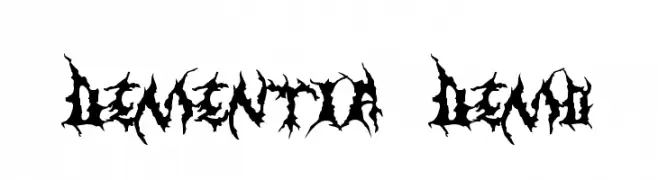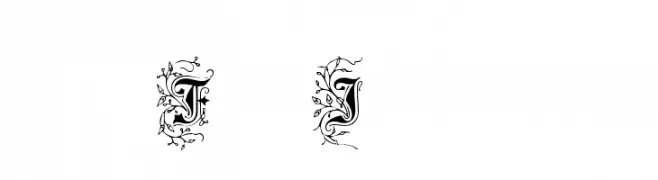
( Fonts by Paul Lloyd )
A decorative and ornate font with uppercase letters in intricate square frames, exuding vintage elegance.
( Fonts by Dieter Steffmann )
An ornate, decorative font with intricate patterns reminiscent of medieval manuscripts.
( Fonts by www.junkohanhero.com )
A bold, distressed font with a grunge aesthetic and textured appearance.
( Fonts by Paul Lloyd )
An ornate and decorative font with intricate floral embellishments.
( Fonts by Manfred Klein - manfred-klein.ina-mar.com )
An ornate, Gothic-style font with intricate flourishes and bold strokes.
( Fonts by Manfred Klein - manfred-klein.ina-mar.com )
An ornate and decorative font with intricate flourishes and historical charm.
( Fonts by The Scriptorium - Dave Nalle )
An ornate and decorative font with intricate spirals and flourishes.
( Fonts by Dieter Steffmann )
An ornate, decorative font with intricate, floral designs ideal for elegant projects.
( Fonts by Paul Lloyd )
An ornate, gothic-inspired font with foliar embellishments.
( Fonts by The Scriptorium - Dave Nalle )
A jagged, thorn-like font with an aggressive and chaotic style.